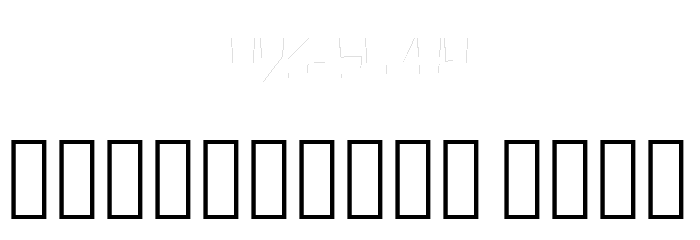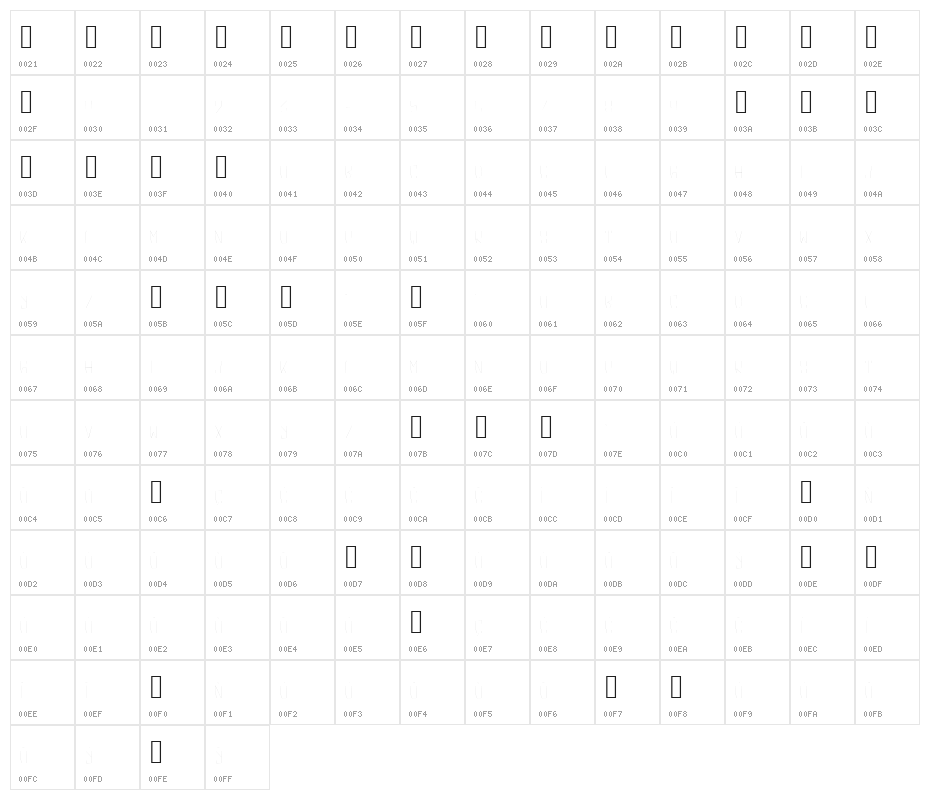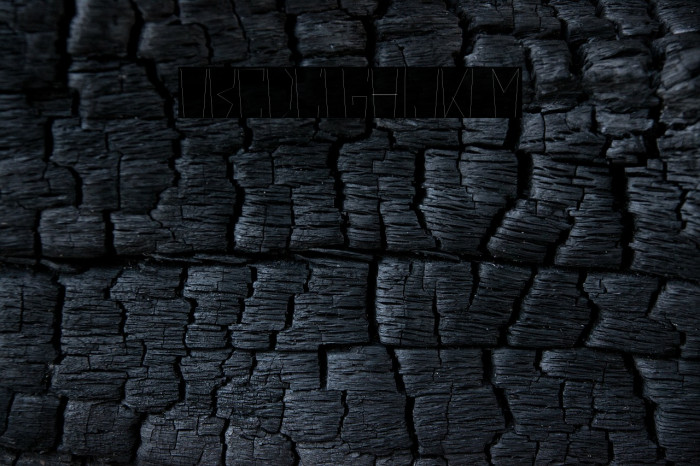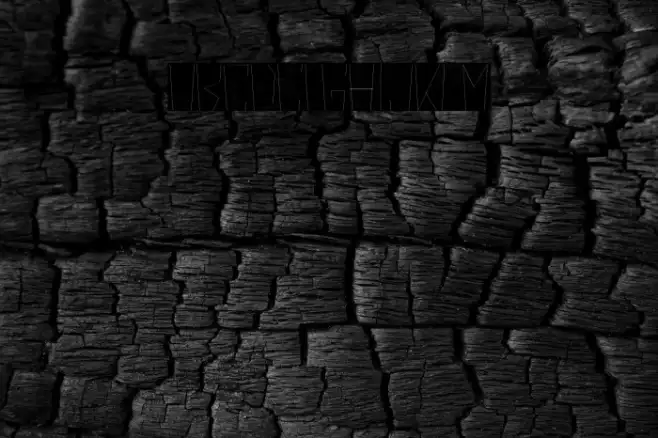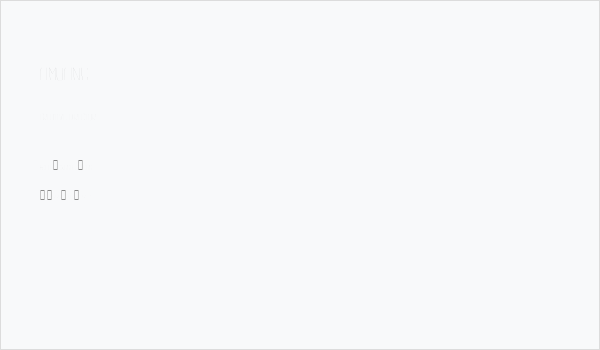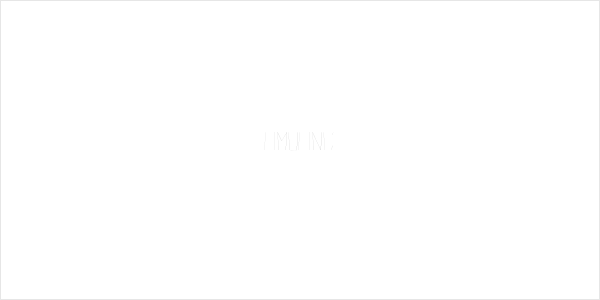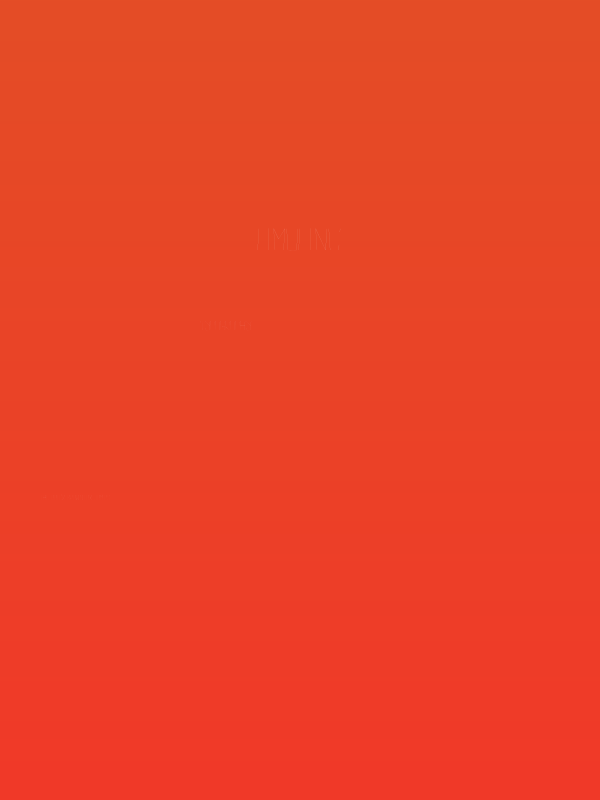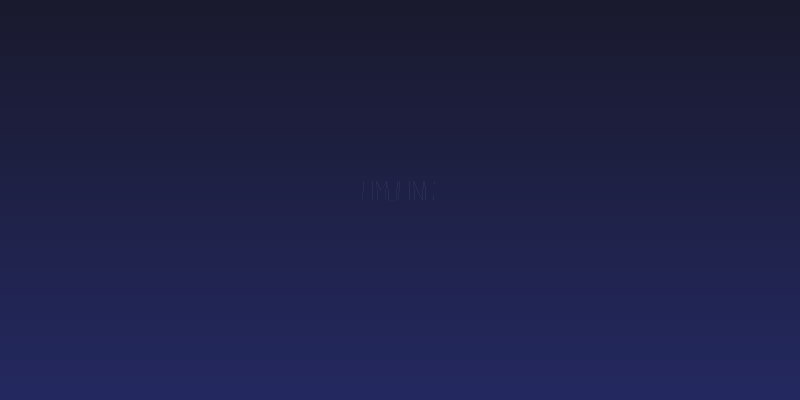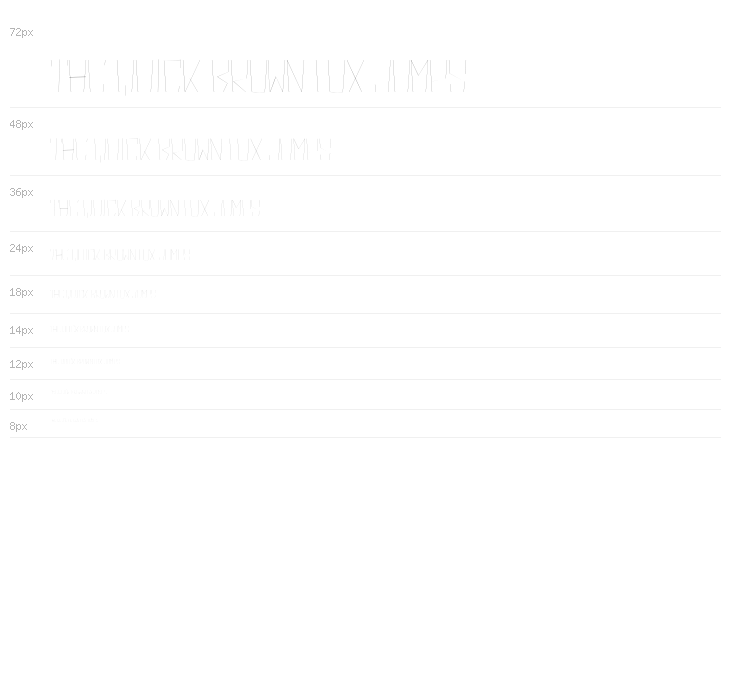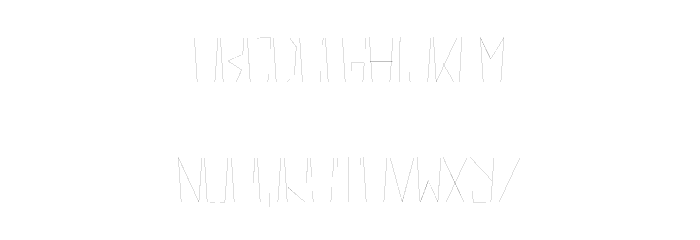
Limoline Font
Limoline Description
This font features a unique, geometric design with angular lines and a futuristic aesthetic. The characters are composed of straight edges and sharp angles, giving it a modern and edgy appearance. The uppercase and lowercase letters maintain a consistent style, with a uniform height and width that creates a cohesive look. The numbers and special characters are designed to match the overall theme, ensuring a seamless integration across all elements. This font is ideal for projects that require a contemporary and innovative touch.
| Proposed Projects | Ideal for tech branding, sci-fi themed projects, modern posters, and digital interfaces. |